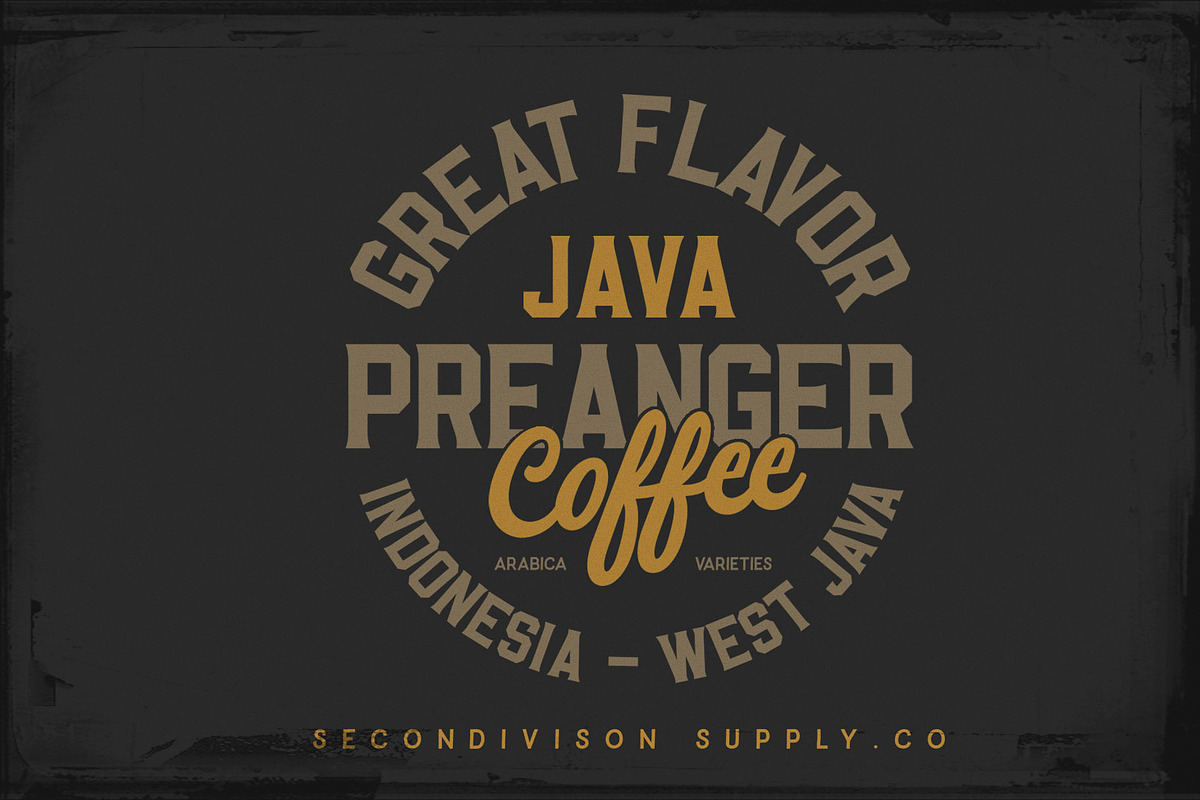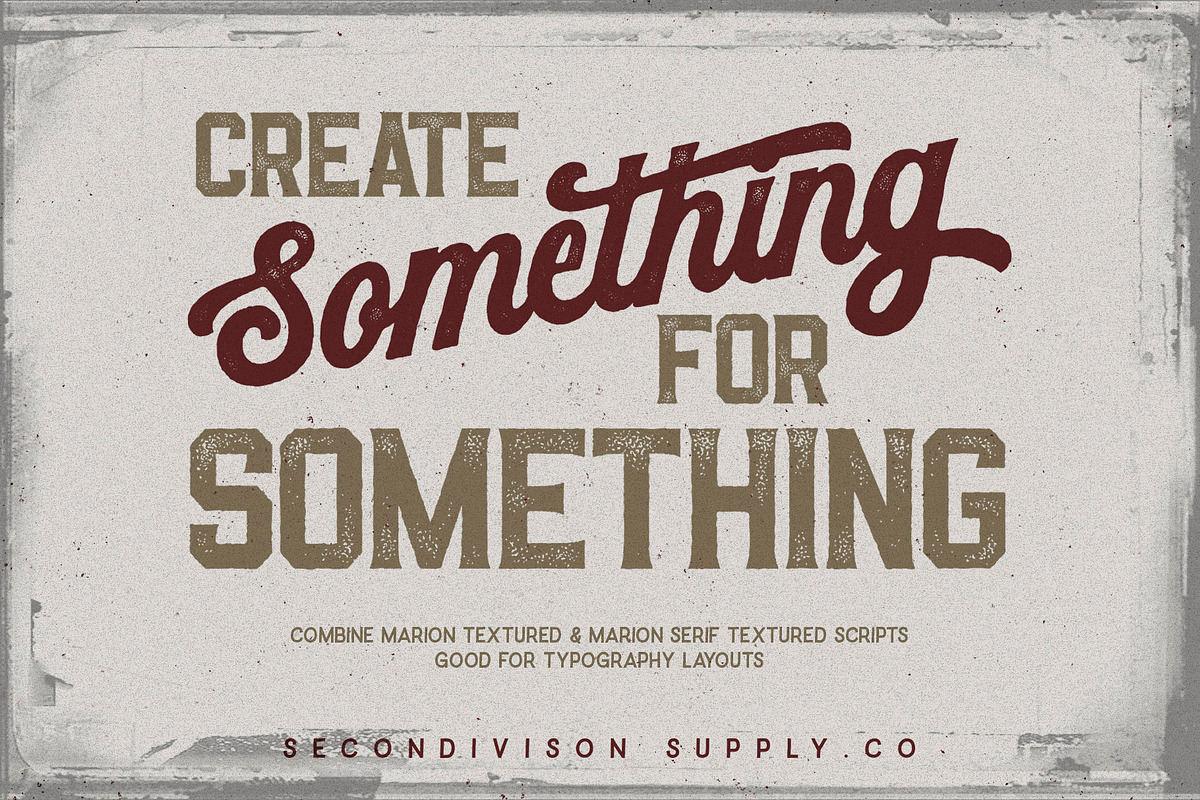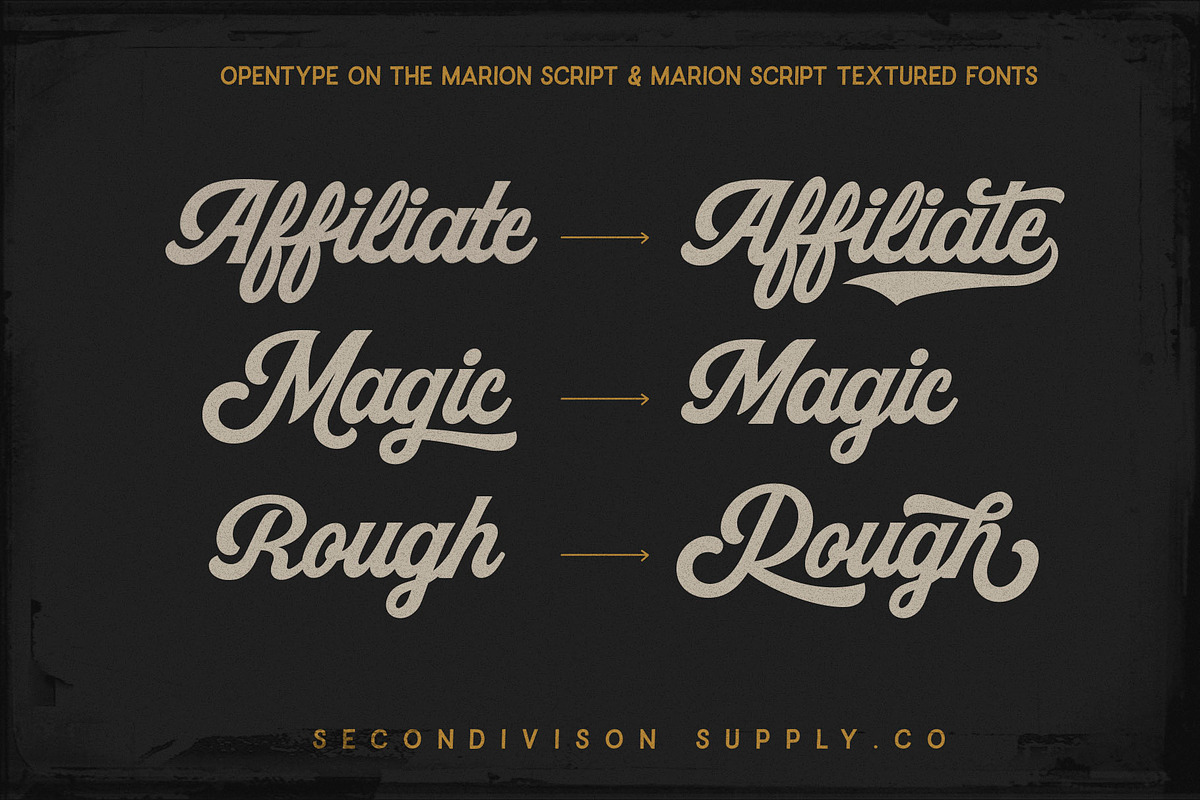
Marion 5 Font
Marion 5 font is a font sales package that contains 5 fonts in the package, namely marion script, marion textured, marion serif, marion serif textured and marion handcrafted. This marion 5 font is inspired by several poster typography layouts.
Marion script & Marion script textured
Marion script and Marion textured script are script fonts that are inspired by the style of hand lettering. marion script and marion script texture are the same fonts but the difference is that marion script is a font with clean lines and fills, whereas marion textured script has fill and lines that have textures that make it look more classic. marion script & marion script textured has an opentype, so you can change the character letters according to what you want.
Marion serif & Marion serif textured
Marion serif & Marion serif textured is a font with uppercase style or all uppercase letters. what distinguishes marion serif and marion serif textured is if the marion serif has clean fill and lines while marion serif textured has textured fill and lines.
Marion handcrafted is a handmade font that makes this font more natural in writing each word. marion hadcraft also has a slightly textured line.